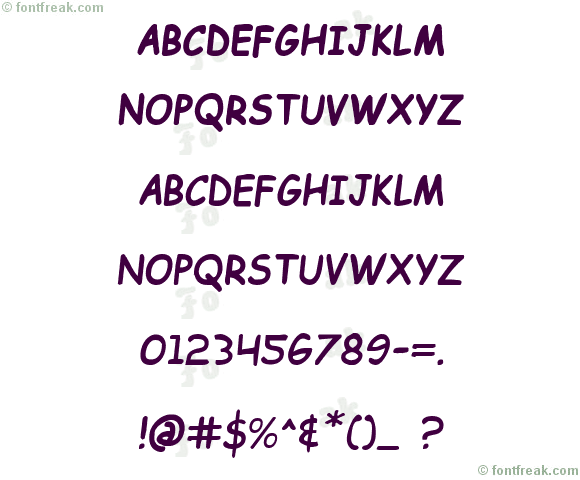
Kid Cobalt
About Kid Cobalt
Kid Cobalt, designed by Daniel Zadorozny, is a distinctive display font that captures a playful yet bold essence, making it an ideal choice for various creative projects. As a decorative typeface, it features thick, rounded strokes that convey a sense of whimsy and approachability. The strokes maintain a consistent weight throughout, providing uniformity while the playful curves lend a casual flair. This font is characterized by its friendly appearance, with generous letter spacing that enhances readability and infuses designs with a light-hearted touch.
The versatility of the Kid Cobalt font makes it suitable for numerous applications. It shines in children's book titles, where its playful nature can engage young readers and parents alike. Additionally, it works wonderfully for vibrant event flyers, capturing the attention of attendees with its energetic vibe. For small business owners, especially those in creative industries like arts and crafts, this font can elevate logos and branding materials, helping to establish a memorable identity. It can also be effectively utilized in social media graphics, where eye-catching visuals are crucial for engagement.
Targeting graphic designers, small business owners, and content creators, Kid Cobalt offers a unique opportunity to infuse projects with a sense of fun and creativity. This font stands out not only for its visual appeal but also for its ability to convey a message of joy and playfulness. With the Kid Cobalt font free download option available, designers can easily incorporate this engaging typeface into their work, ensuring that their designs resonate with audiences in a delightful and memorable way.